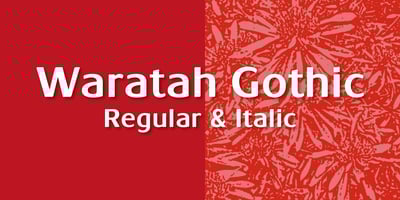
Waratah Gothic
Waratah Gothic font
Waratah Gothic Font Family was designed by Keith Morris and published by Bean & Morris. Waratah Gothic contains 2 styles and family package options. The Waratah flower is the the emblem of the State of New South Wales, Australia and is unique in its color and design. So too is this new contemporary sans serif typeface that bears its name. With a warmth and friendliness that echoes its origin Waratah Gothic is at home in both text and display and has potential to become a font family with a variety of weights and italics. For corporate, packaging or simple one-line display settings Waratah Gothic is sure to please. Waratah Gothic features a generous x-height and subtle rounding on alternate terminals providing a softness that makes for easy reading.